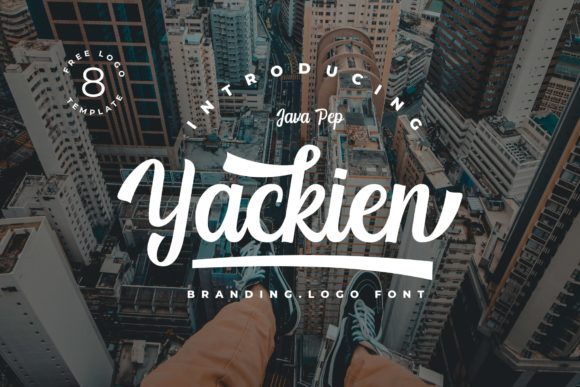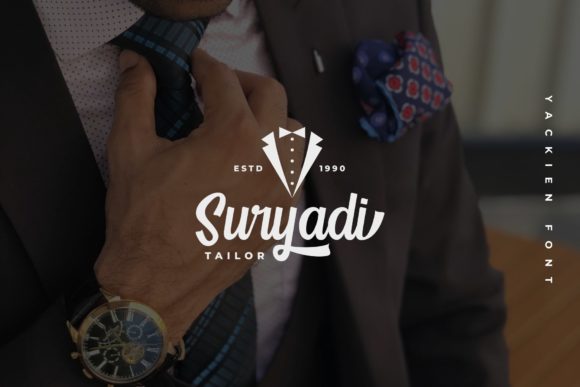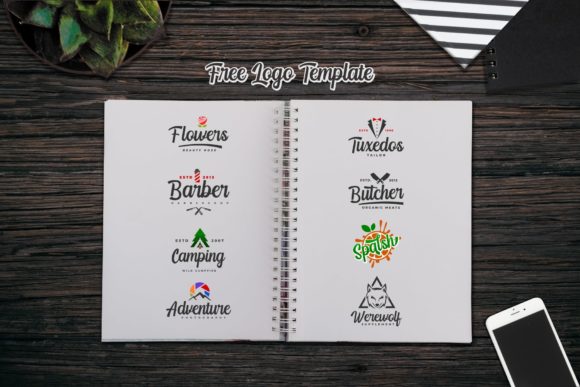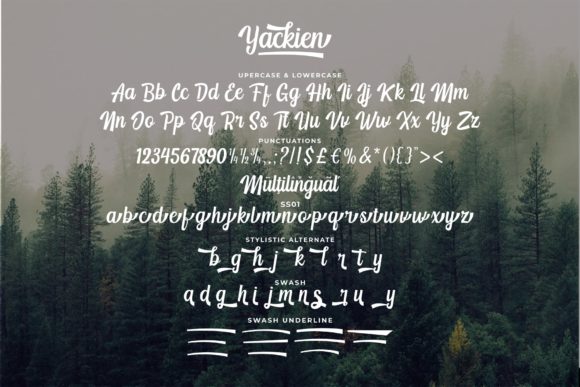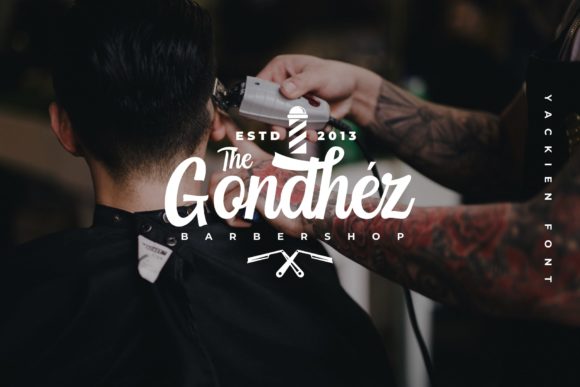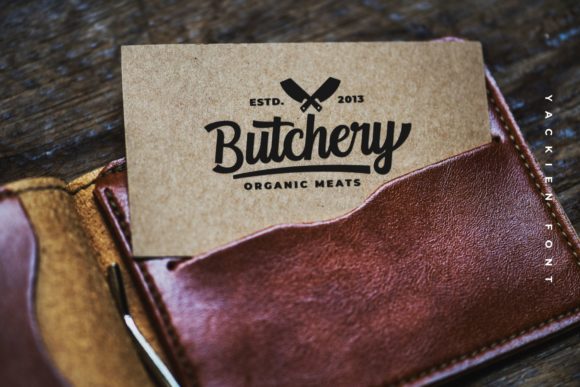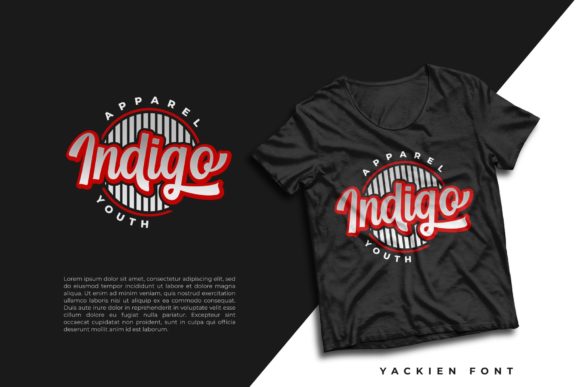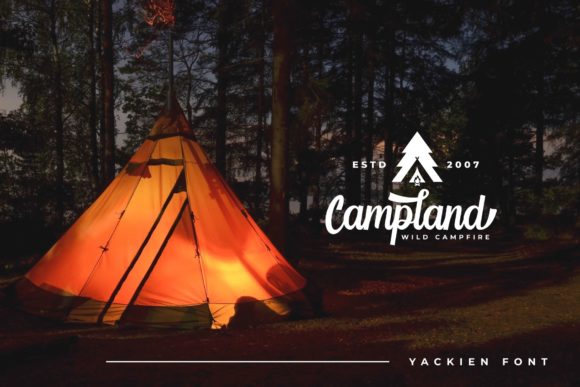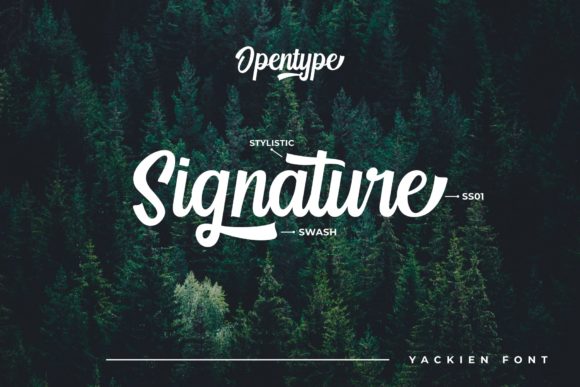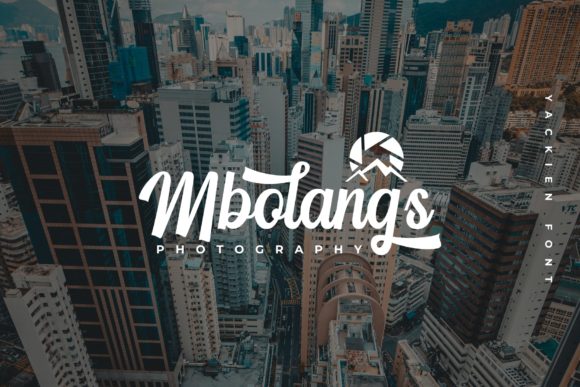
Yackien Font
About Yackien Font
Yackien is a lovely handwritten font with an incredible charm. Get inspired by its unique charm, and turn any design project into a stand out!